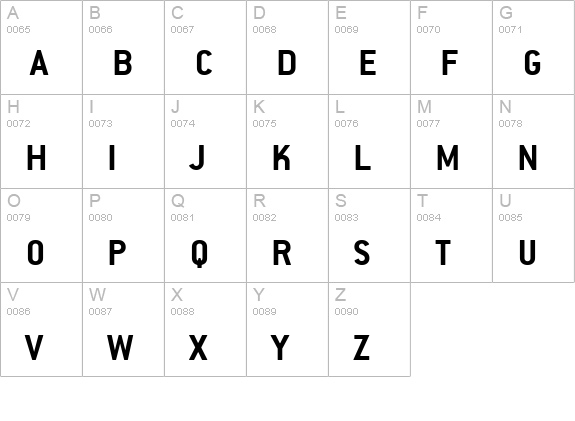
PFPremier Bold is a strong, high-contrast variant in the PFPremier typeface family \xE2\x80\x94 well suited to headlines, attention-grabbing titles, and strong calls-to-action.
Introducing PFPremier Bold font, a versatile and modern typeface designed to make a bold statement in your projects. This sleek and sophisticated font is perfect for creating eye-catching designs that demand attention. With its clean lines and strong presence, PFPremier Bold font exudes confidence and professionalism. What's even better is that PFPremier Bold font is available for free download at FontsMarket.com. Yes, you read that right - this premium quality font can be yours at no cost! Whether you're working on branding, advertising, posters, or any other design project, PFPremier Bold font is sure to elevate your work to the next level. Don't miss out on this fantastic opportunity to enhance your designs with PFPremier Bold font. Download it now and add a touch of elegance and sophistication to your creative projects.